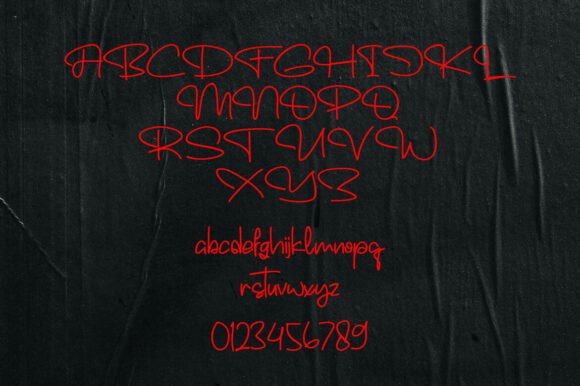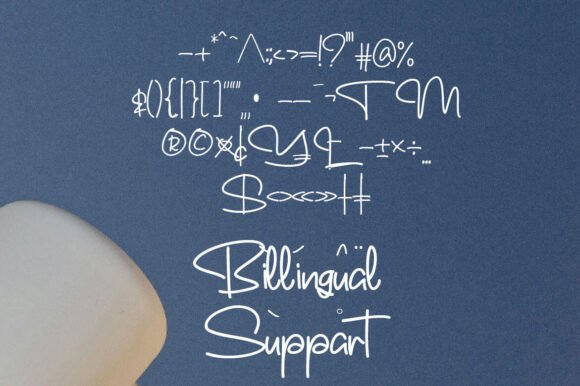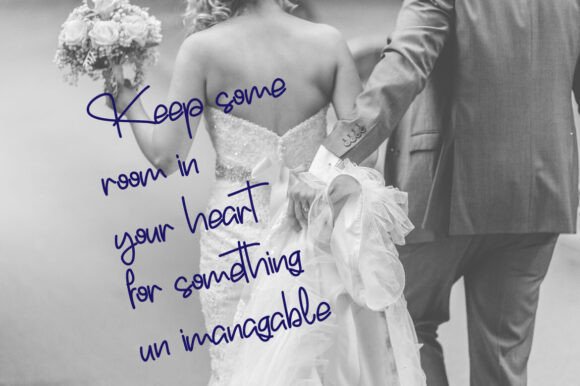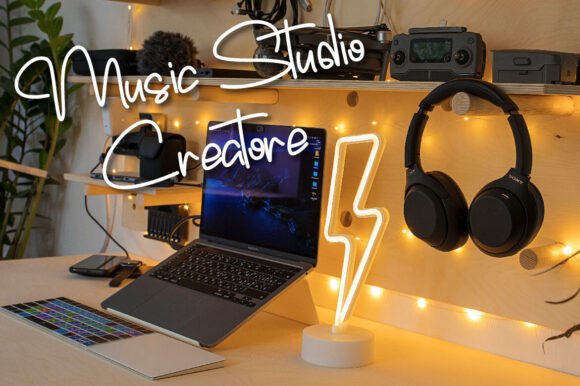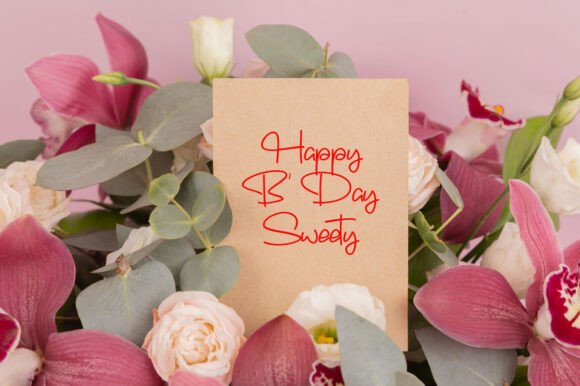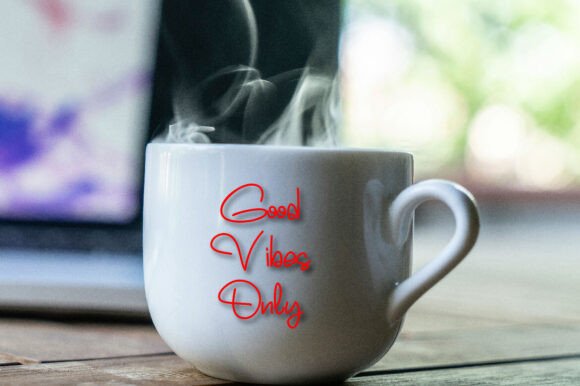
Get Ready to Unwrap the Magic of the Season with Christmas Delevery Font
As the festive season approaches, designers are always on the lookout for that perfect font to capture the essence of Christmas. It’s that moment when you’re sipping hot cocoa, surrounded by twinkling lights, and brainstorming ideas for the holiday season. You want a font that exudes warmth, elegance, and sophistication – something that will make your designs stand out from the crowd.
Enter the Christmas Delevery Font, a beautiful handwritten script font designed to bring a touch of personal charm to your creative projects. Whether you’re crafting invitations, logos, or social media posts, this font is sure to add a festive flair to your designs. As a designer, you’ll appreciate the versatility and sophistication of the Christmas Delevery Font, making it a valuable addition to your creative toolkit.
Christmas Delivery Font Key Features
- Unique Characteristics: Includes 4 styles (Regular, Italic, Bold, Bold Italic) and 24 festive ornaments and icons
Designer Review: Christmas Delivery Font
Overall, I think the Christmas Delivery Font is a solid choice for holiday-themed projects. Here are some of its strengths: ✨
- Fun, playful design that captures the spirit of Christmas
- Comprehensive character set, including Latin, Cyrillic, and Greek scripts
- Supports various font styles, including bold, italic, and condensed
- Good legibility, even at smaller font sizes
- Limited language support, excluding non-Latin scripts
- No support for OpenType features like ligatures or stylistic sets
- Some font weights may not be as smooth or refined as others
Overall, I’d say the Christmas Delivery Font is a great choice for designers who need a fun, festive font for their holiday projects. While it may not be the most comprehensive or feature-rich font, it’s a solid option that’s sure to add some holiday cheer to any design.
Getting the Most Out of the Font
For the best results, use the Christmas Delivery Font in conjunction with festive graphics and colors. Experiment with different font sizes and styles to create visually appealing designs. Consider using the font in combination with other festive fonts to add variety to your designs.
The Christmas Delivery Font is ideal for creating festive invitations, gift tags, and holiday cards. It can also be used to add a touch of holiday cheer to social media graphics, email headers, and website banners.
Alternatives to Christmas Delivery Font for Designers
Great Vibes is a beautiful, handwritten font that works well for titles and headings. It’s perfect for designers who want to add a touch of elegance and sophistication to their designs. Unlike Christmas Delivery Font, Great Vibes has a more refined and delicate look, making it suitable for a wider range of projects.
Comparison: Great Vibes has a more polished and sophisticated look compared to Christmas Delivery Font’s playful and casual feel.
Pacifico is a elegant, cursive font that’s ideal for titles, headings, and body text. It’s perfect for designers who want to add a touch of luxury and sophistication to their designs. Unlike Christmas Delivery Font, Pacifico has a more refined and classic look, making it suitable for high-end projects.
Comparison: Pacifico has a more classic and timeless look compared to Christmas Delivery Font’s playful and festive feel.
Carolyna Pro is a beautiful, elegant font that works well for titles, headings, and body text. It’s perfect for designers who want to add a touch of sophistication and luxury to their designs. Unlike Christmas Delivery Font, Carolyna Pro has a more refined and delicate look, making it suitable for a wider range of projects.